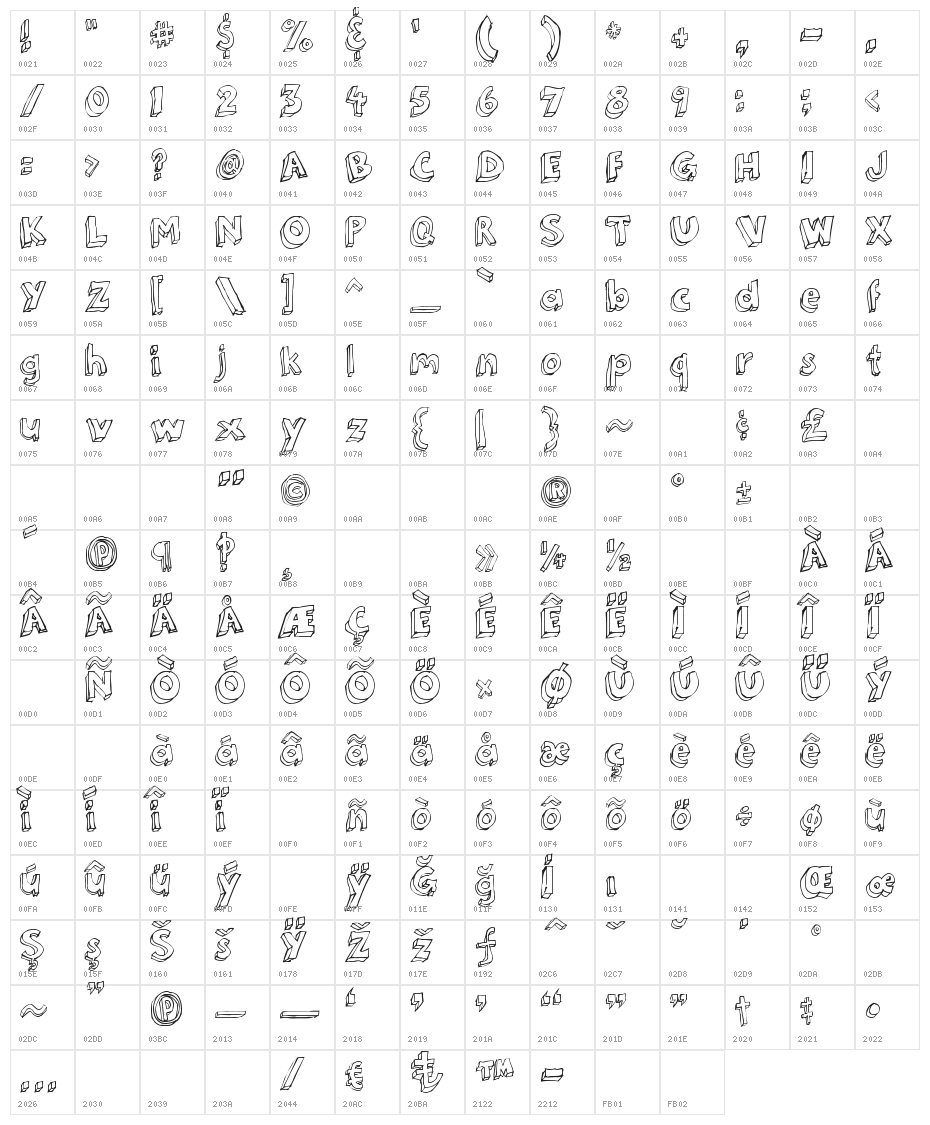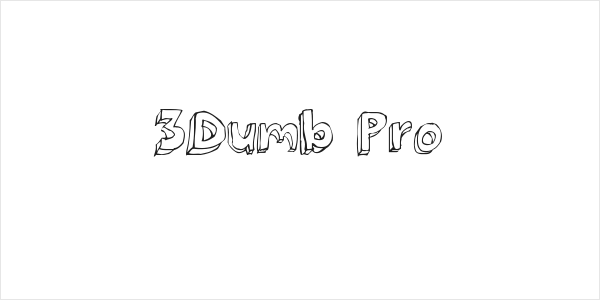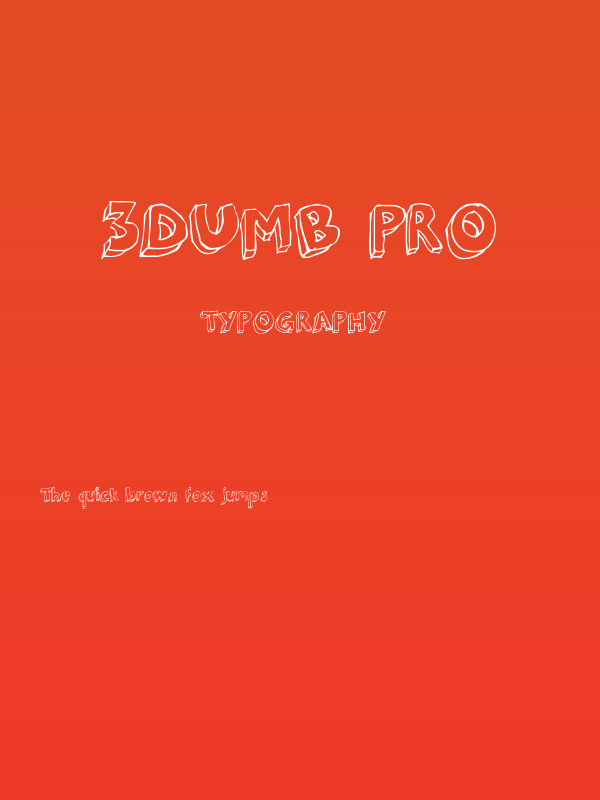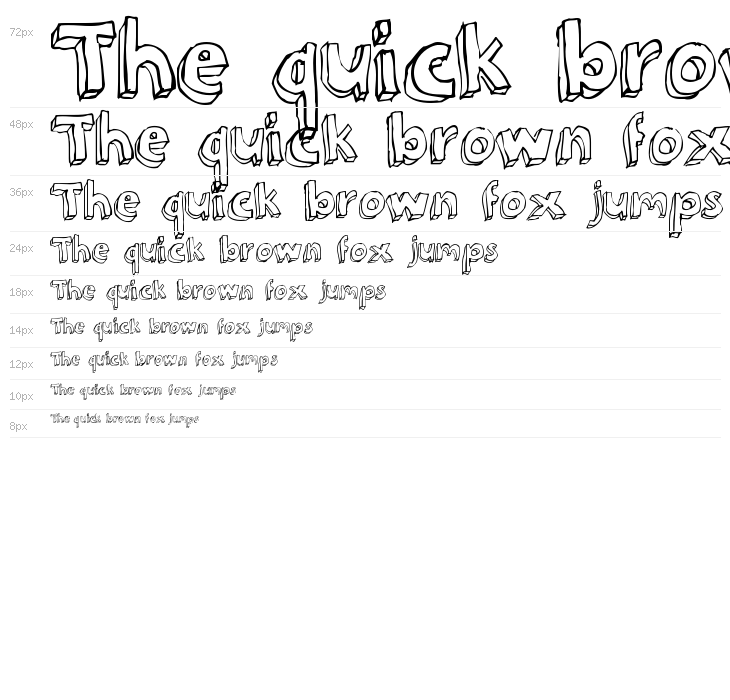
3Dumb Pro Font
3Dumb Pro Description
This font features a playful and bold 3D design, giving each character a hand-drawn, cartoon-like appearance. The letters are outlined with a thick black stroke, creating a sense of depth and dimension. The style is informal and whimsical, making it ideal for creative and fun projects. The uppercase and lowercase letters maintain a consistent style, with exaggerated curves and angles that enhance the playful aesthetic. Numbers and special characters follow the same design principles, ensuring a cohesive look across all elements. The font's unique style makes it stand out, perfect for capturing attention in various design contexts.
| Proposed Projects | Ideal for children's book covers, comic strips, playful branding, and event posters. |